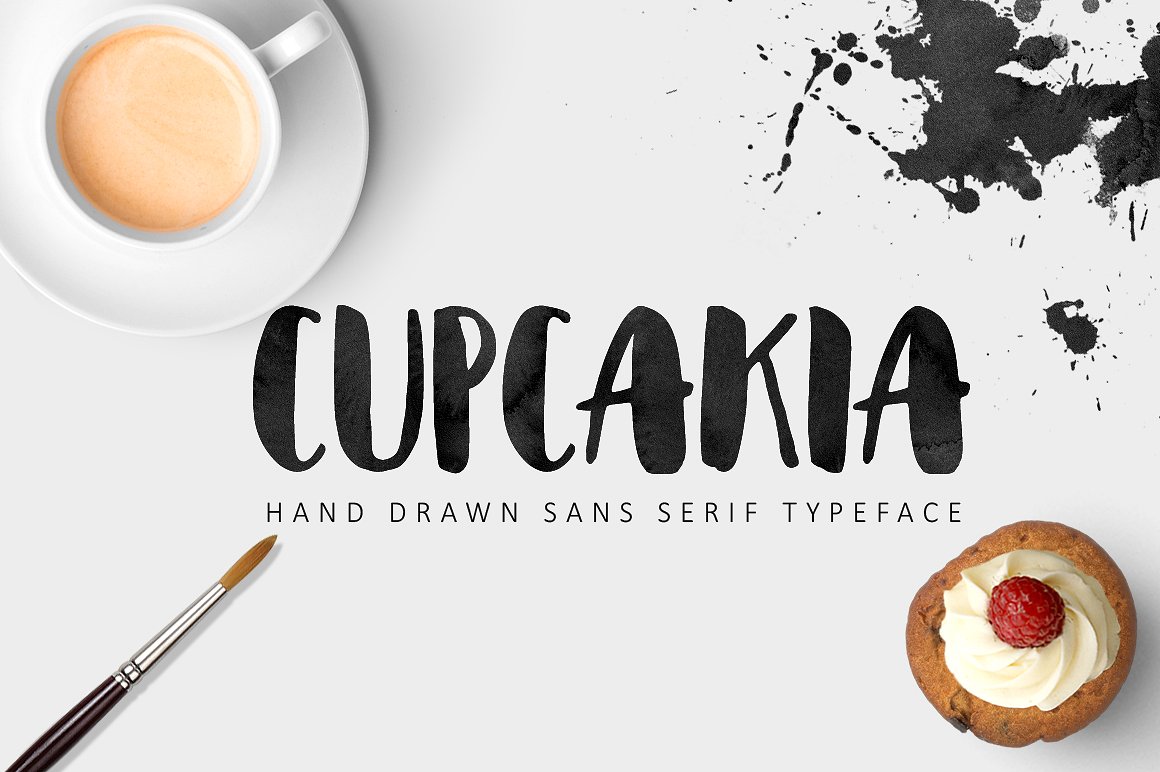
Cupcakia Font
I would like to introduce you Cupcakia – the original cool & funny handwritten sans-serif brush typeface. Cupcakia will give to your work artistic handmade feel. Great for various kinds of your projects (wedding, birthday cards, invitations, logo, branding…). Contains standard characters, lowercase, uppercase, numbers, punctuation and some international characters (see character map). Have fun with Cupcakia!